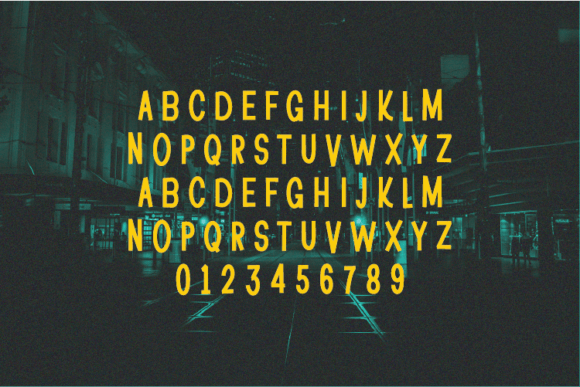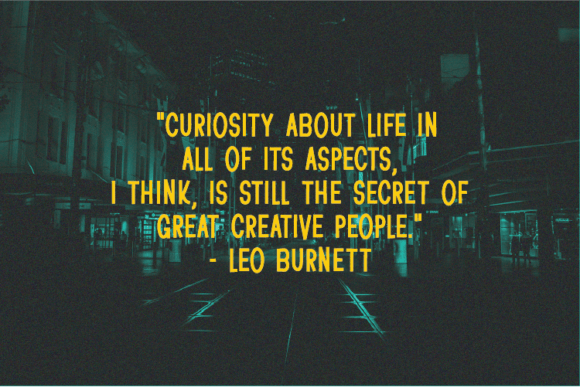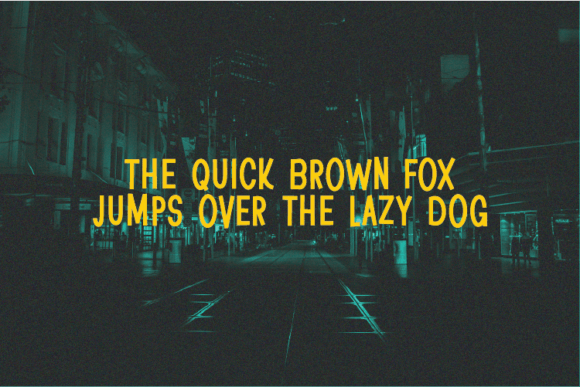
Introduction to Pouncing Font
Have you ever been in the middle of a creative project, staring at a blank page or screen, and suddenly a spark of inspiration hits you? The words flow effortlessly, and the design starts to take shape. This is exactly the feeling you’ll get when working with the Pouncing Font – a unique sans serif font that adds a touch of personality to your quotes, notes, T-shirts, and more.
As a designer, you’re always on the lookout for high-quality design resources that can elevate your projects. The Pouncing Font is a valuable addition to your collection, offering a transparent background that blends seamlessly with your design. With its free download option, you can experiment with this font and see how it enhances your creative project.
Whether you’re a seasoned designer or a hobbyist, the Pouncing Font is an excellent choice for anyone looking to add a distinctive touch to their work.
Pouncing Font
- High-quality, hand-drawn design ideal for creative projects requiring a unique touch.
- Comes in a transparent background format, allowing for seamless integration with various design elements.
- Features a bold, playful style with intricate details, perfect for adding personality to designs.
- Designed at a high resolution (300 DPI) to ensure crisp, clear text and graphics.
- Includes a range of font sizes and weights, making it versatile for various design applications.
Honest Review: Pouncing Font
As a designer, I’m always on the lookout for high-quality design resources to elevate my creative projects. The Pouncing Font caught my attention, and I decided to give it a try.
What works well: ✨ The Pouncing Font is a unique and playful sans-serif font that’s perfect for adding a touch of whimsy to your designs. The transparent background makes it easy to layer and combine with other elements. The font is available for free download, which is a major plus for designers on a budget.
- Unique and playful design
However, there are some limitations: ⚠️ The font is not as versatile as some other sans-serif fonts on the market, and it may not be the best choice for formal or professional designs. Additionally, the font’s unique design can sometimes be overwhelming if not used judiciously.
Overall, I’d say the Pouncing Font is a solid addition to any designer’s toolkit. While it may not be perfect, it’s a fun and creative resource that’s perfect for adding some personality to your projects.
Pouncing Font
Pouncing Font is a unique design resource that offers a high-quality, transparent background, making it perfect for creative projects. This versatile font is available for free download, allowing designers to experiment with new ideas.
Getting the Most Out of Pouncing Font
To get the most out of Pouncing Font, experiment with different font sizes, colors, and styles. Combine the font with other design elements to create visually striking compositions.
Pouncing Font is ideal for creative projects, such as:
– Designing logos and branding materials
– Creating social media graphics and advertisements
– Developing presentations and reports
Great Vibes is a modern, cursive font that is ideal for creative projects that require a touch of elegance. It’s a high-quality font that works well with transparent backgrounds, making it perfect for designs that require a sophisticated look. When to use: Wedding invitations, luxury brands, and high-end advertising. How it compares to Pouncing Font: Great Vibes is more elegant and refined, whereas Pouncing Font is more playful and energetic. Free download: Yes, available on DaFont.